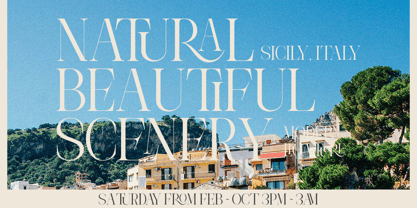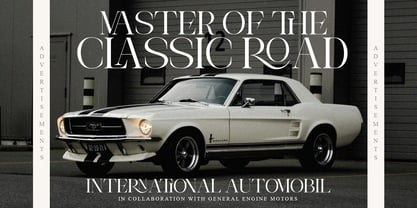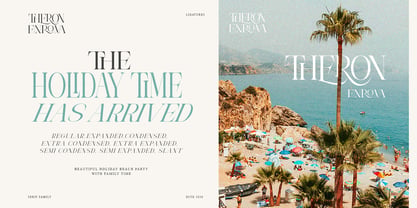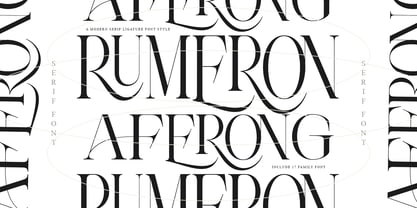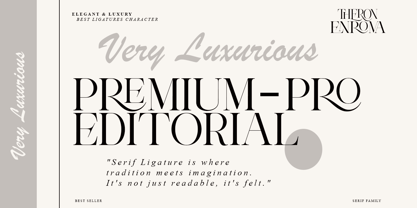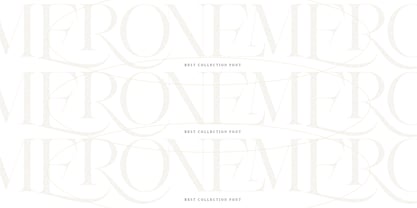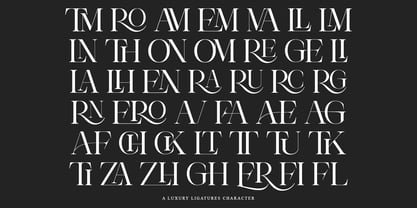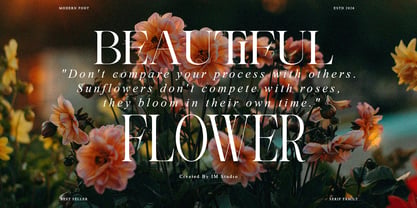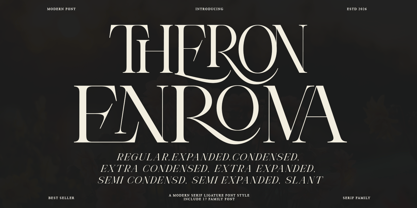
Theron Enroma
The Theron Enroma Font Family was designed by Ikhsan Maulana and published by IM Studio. Theron Enroma contains 17 styles and family package options. More about this family
Theron Enroma is a tag font family consisting of 17 elegant styles that combine graceful serifs with flowing handwritten styles. Designed to work beautifully together, these fonts bring a timeless, romantic, and artistic feel to any design. The serif styles feature graceful curves and stylish alternates, perfect for headlines, logos, and editorial layouts. Meanwhile, the handwritten font adds a natural, handwritten touch that feels personal and expressive, ideal for signatures, branding accents, and decorative text. Perfect for: Branding & logo design, Wedding invitations & stationery, Beauty, fashion, and floral design, Editorial layouts & social media graphics, Product packaging and quotes